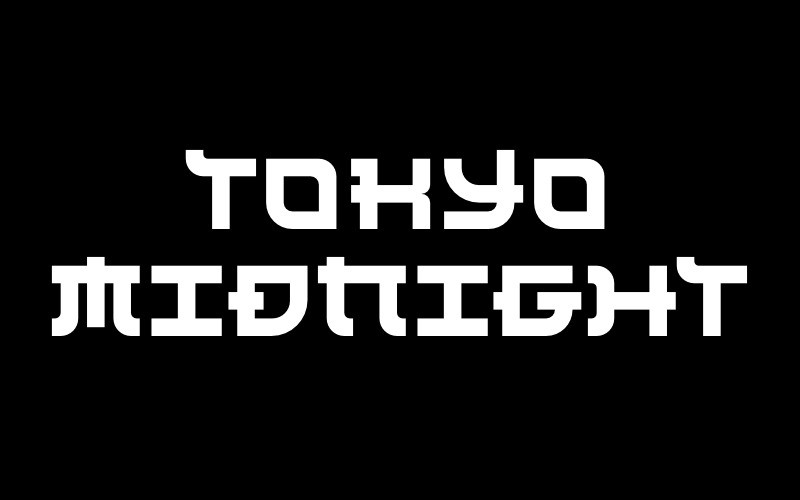
Tokyo Midnight Font
Tokyo Midnight Display Font, Its optimum legibility, clean, and geometric look is perfect branding, brochures, greeting cards, quotes, posters, stationary, design titles, blog headers, and much more.
This is my first ever font creation.
Capitals gives regular
Lowercase gives oblique